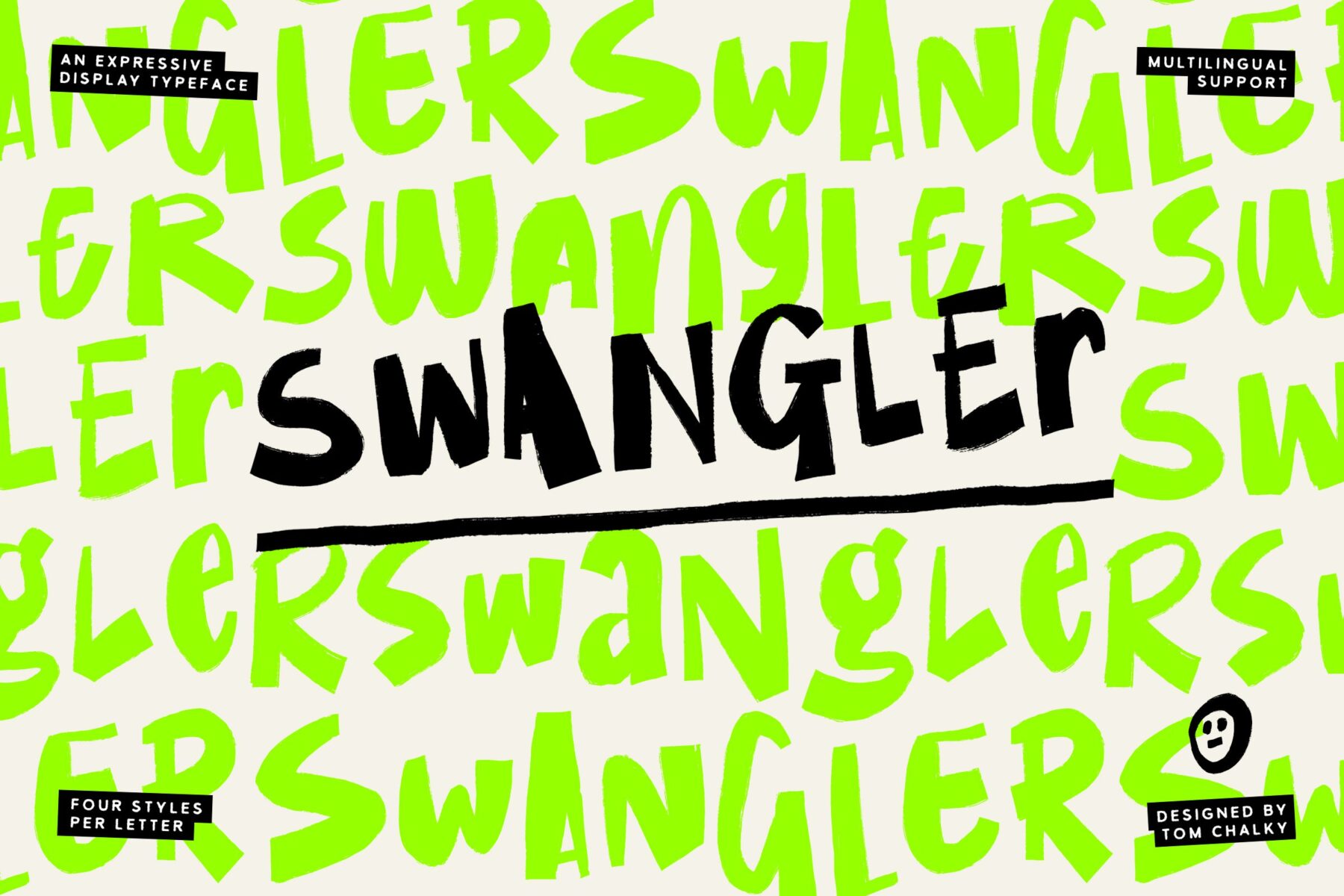
TC Swangler
Introduce a splash of spontaneity and flair to your designs with ‘Swangler,’ a typeface that’s as bold and confident as it is expressive. Swangler is designed not just to be read, but to be experienced, making it perfect for projects that require a touch of personality and impact.
Why Choose Swangler? Swangler stands out with its handcrafted look inspired by dynamic event posters and vibrant marketing campaigns. Each character comes in four distinct styles, allowing designers to mix and match for a truly customized expression. This versatility makes Swangler ideal for branding, advertising, and editorial design where a statement is needed.